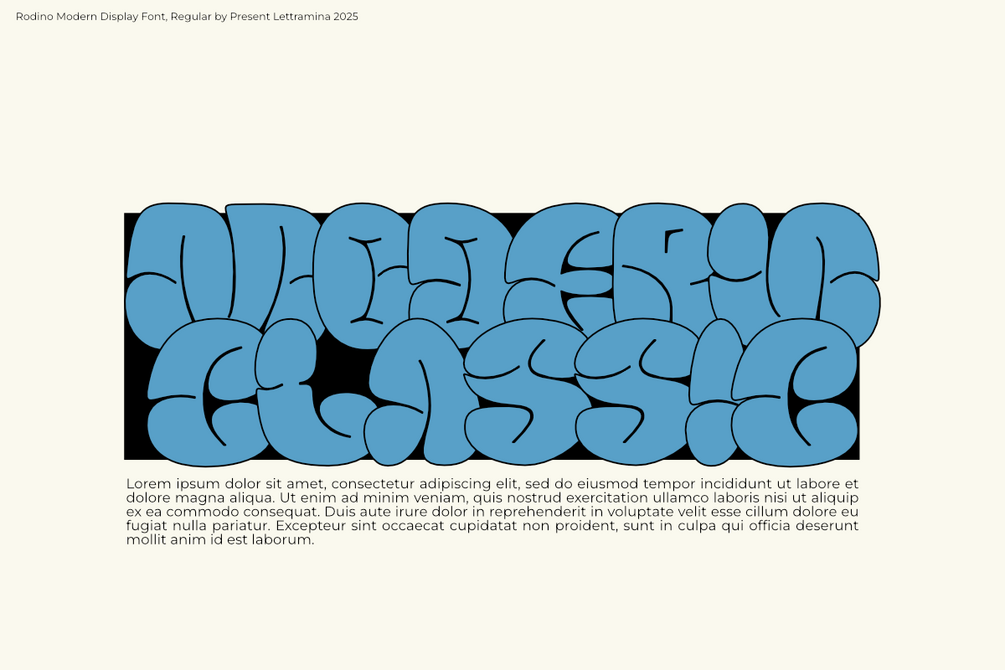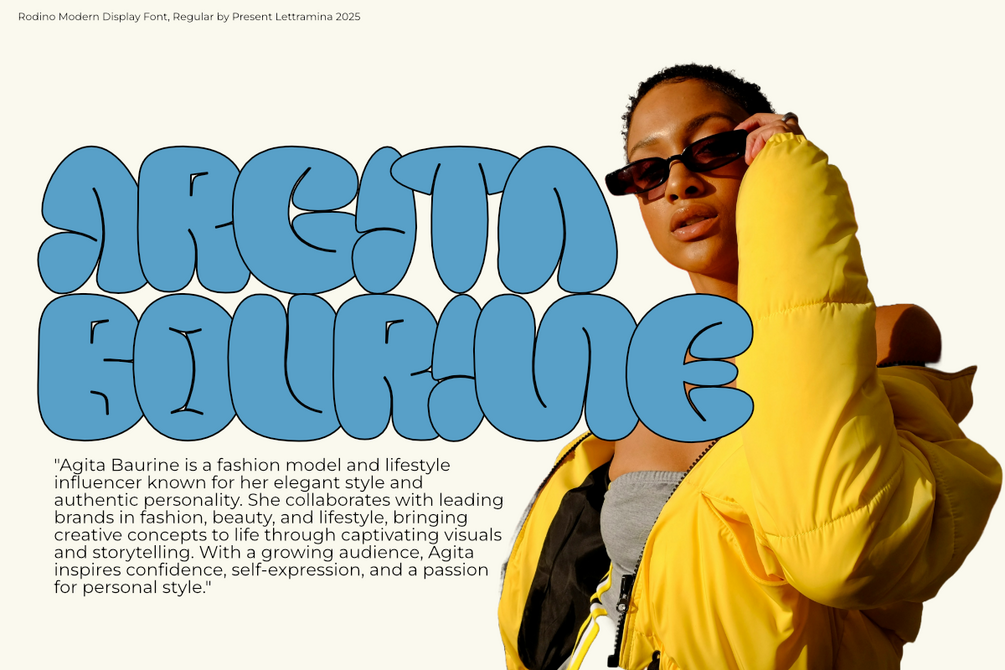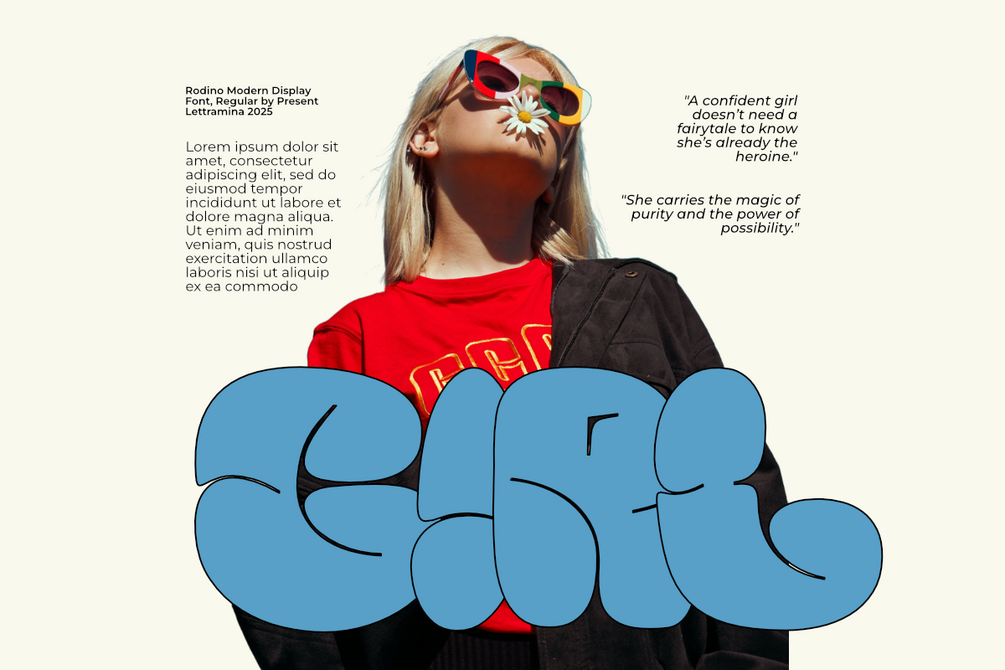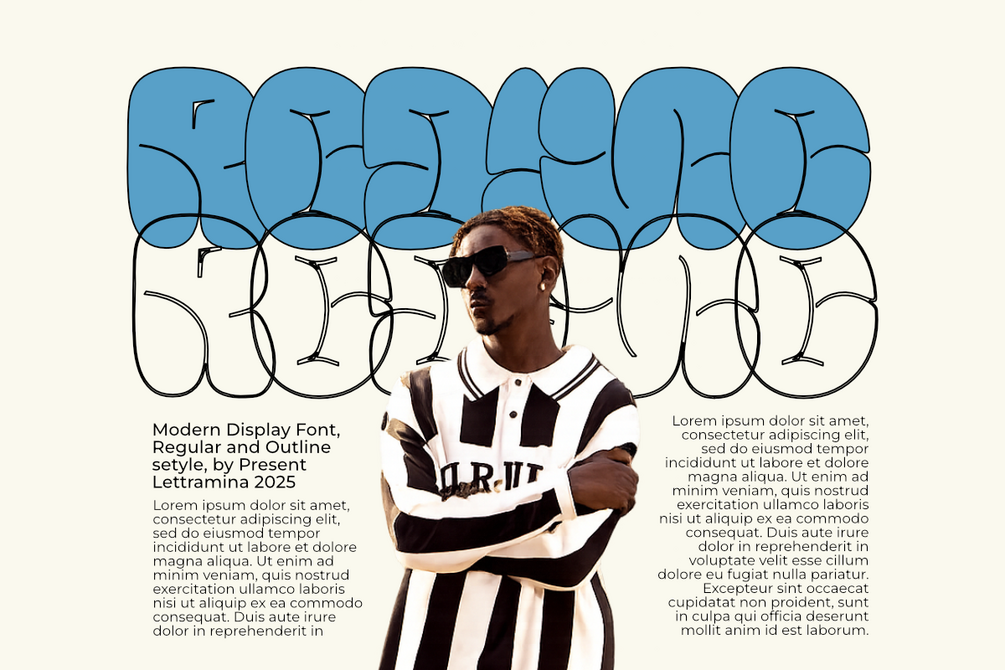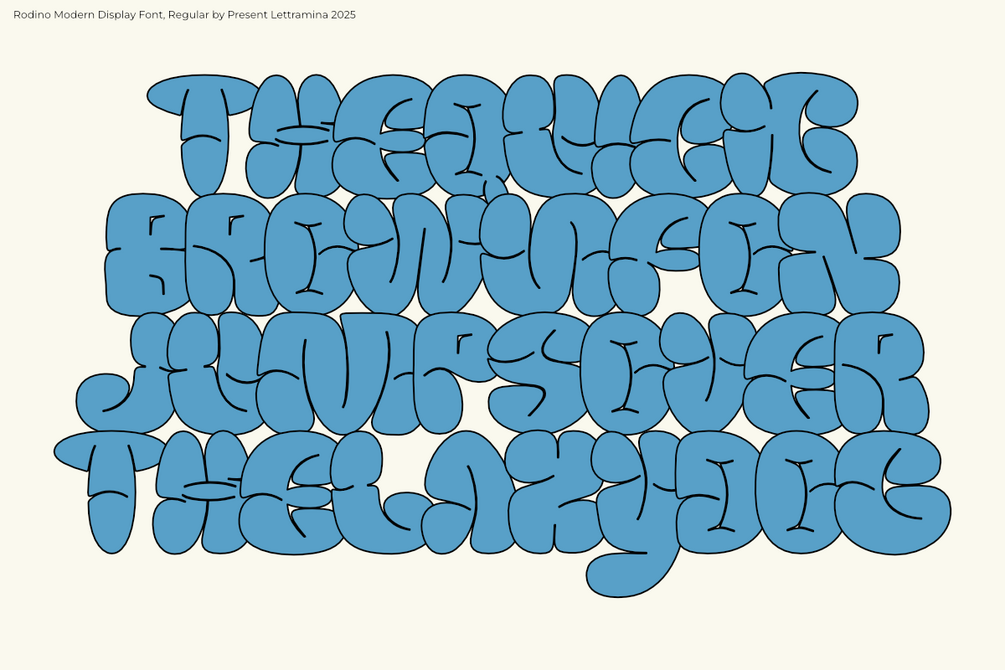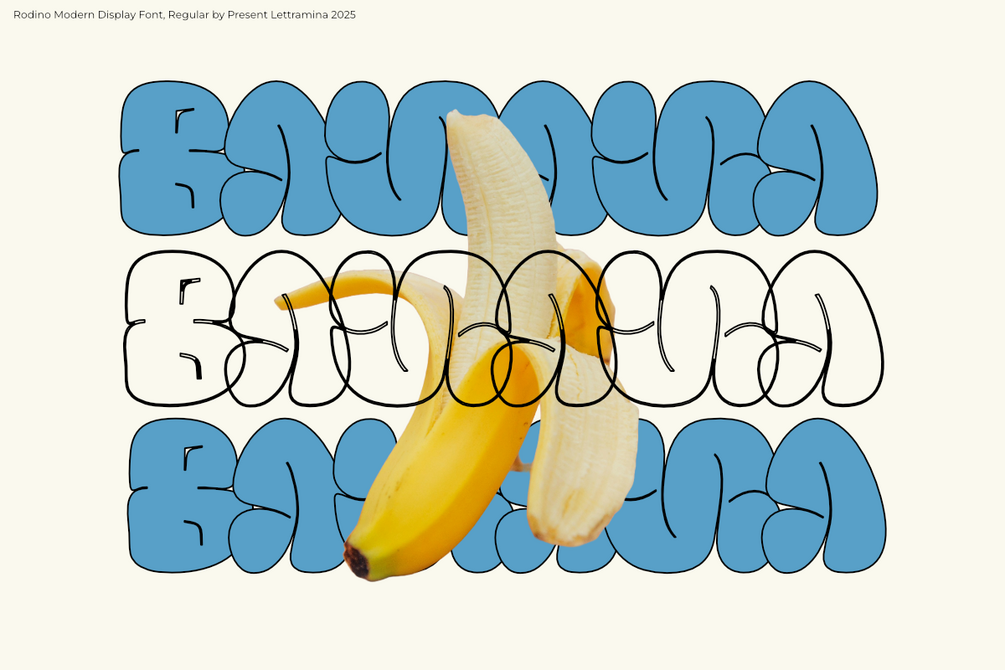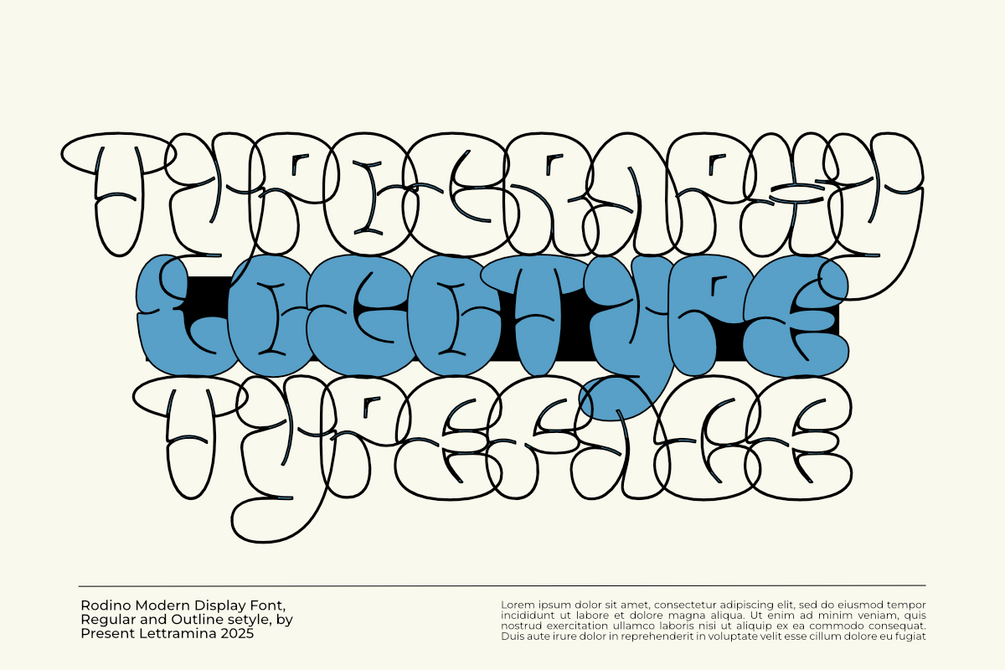
Radino Font
Rodino – Playful Bubble Display Font
Rodino is a bold and bubbly display typeface that blends retro charm with modern playfulness. Featuring smooth, rounded forms and a unique inflated letter style, Rodino brings a fun and eye-catching personality to any design. Its distinctive curves and whimsical shapes make it perfect for branding, posters, album covers, editorial layouts, packaging, and creative typography projects.
Whether you want to create a vibrant fashion look, a cheerful event poster, or a nostalgic retro vibe, Rodino delivers versatility with a unique visual punch. The font includes uppercase, lowercase, numbers, punctuation, and multilingual support, ensuring it’s ready for both print and digital design.
Features:
Uppercase & lowercase
Multilingual support
Punctuation & symbols